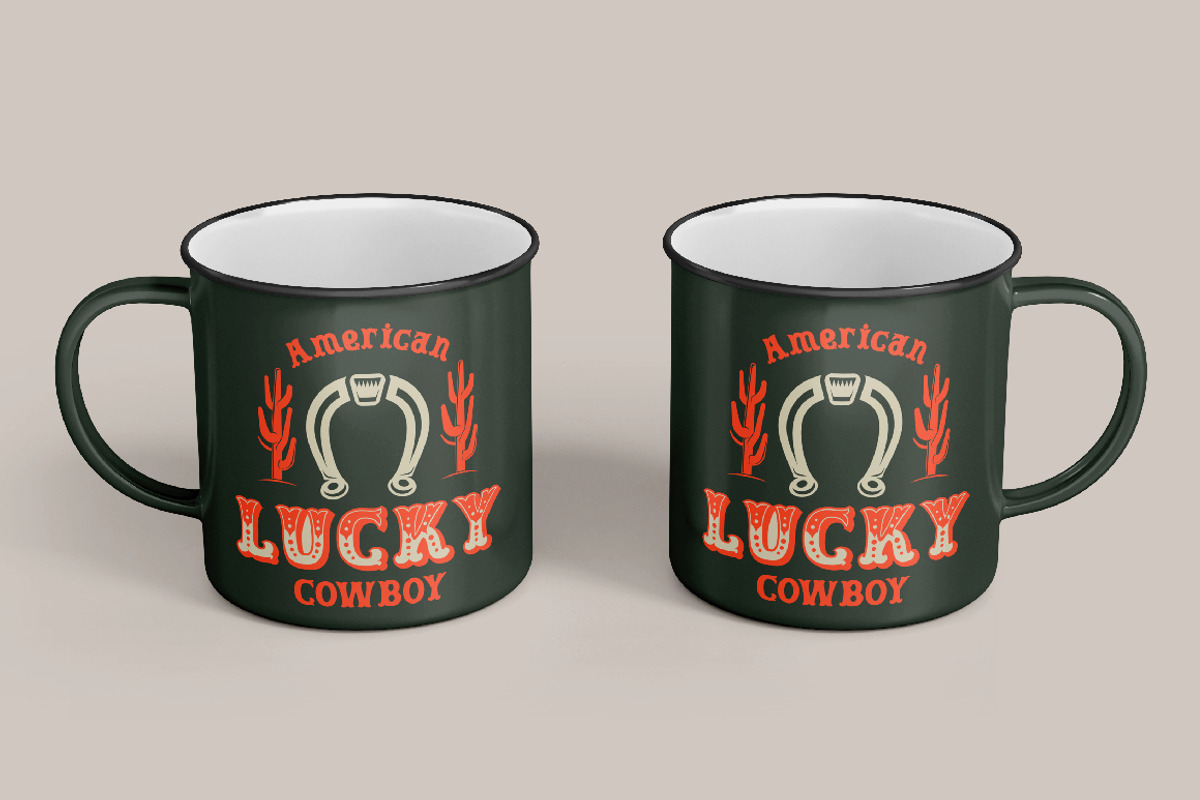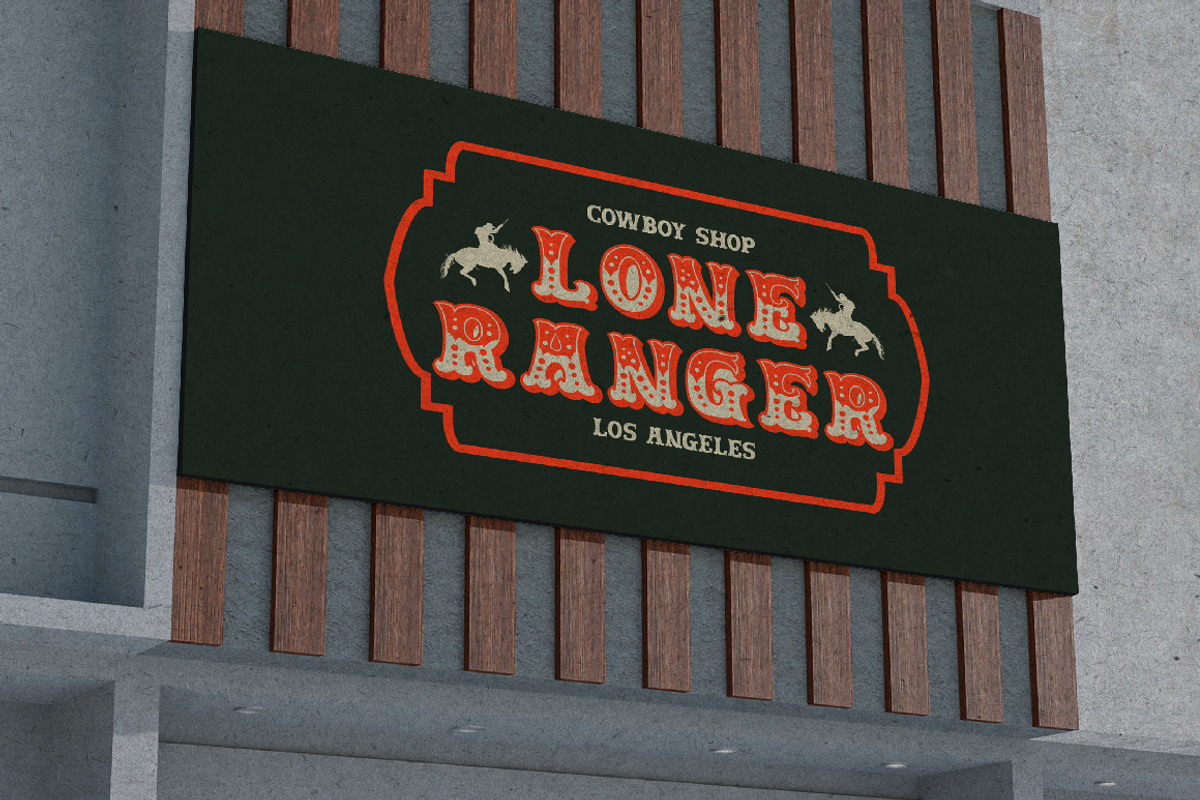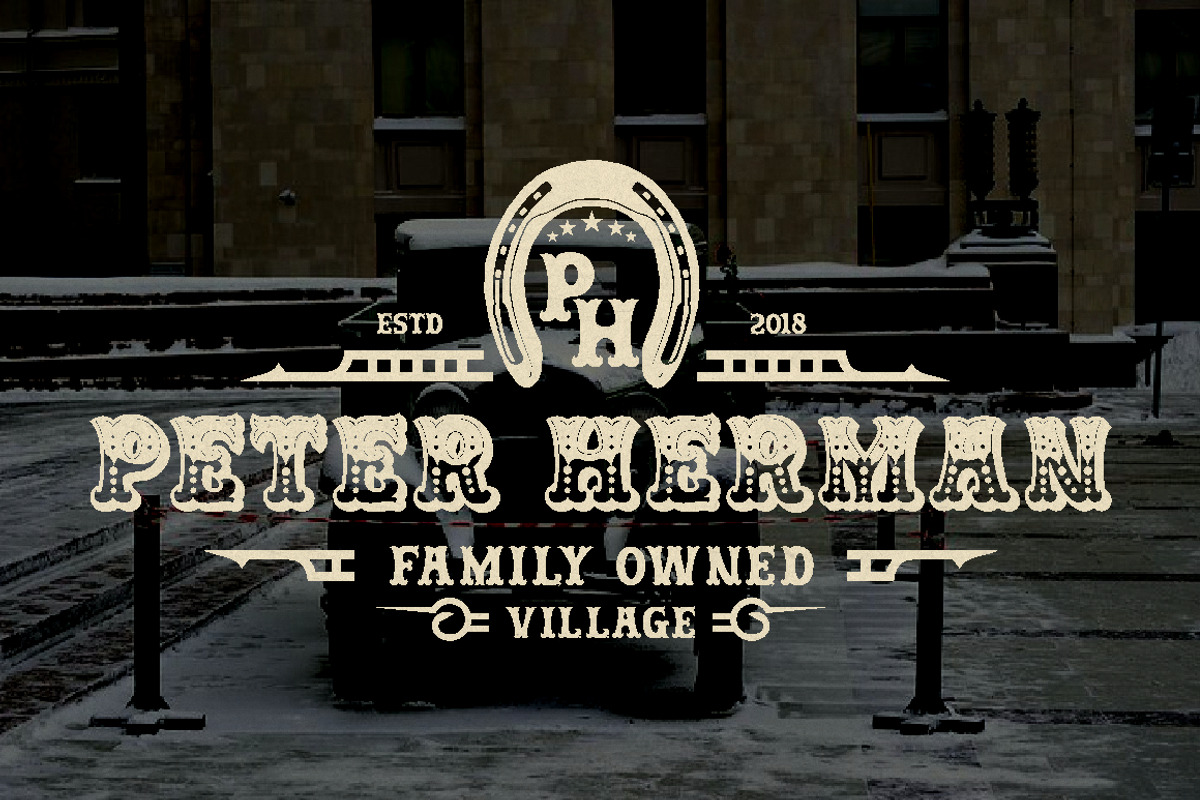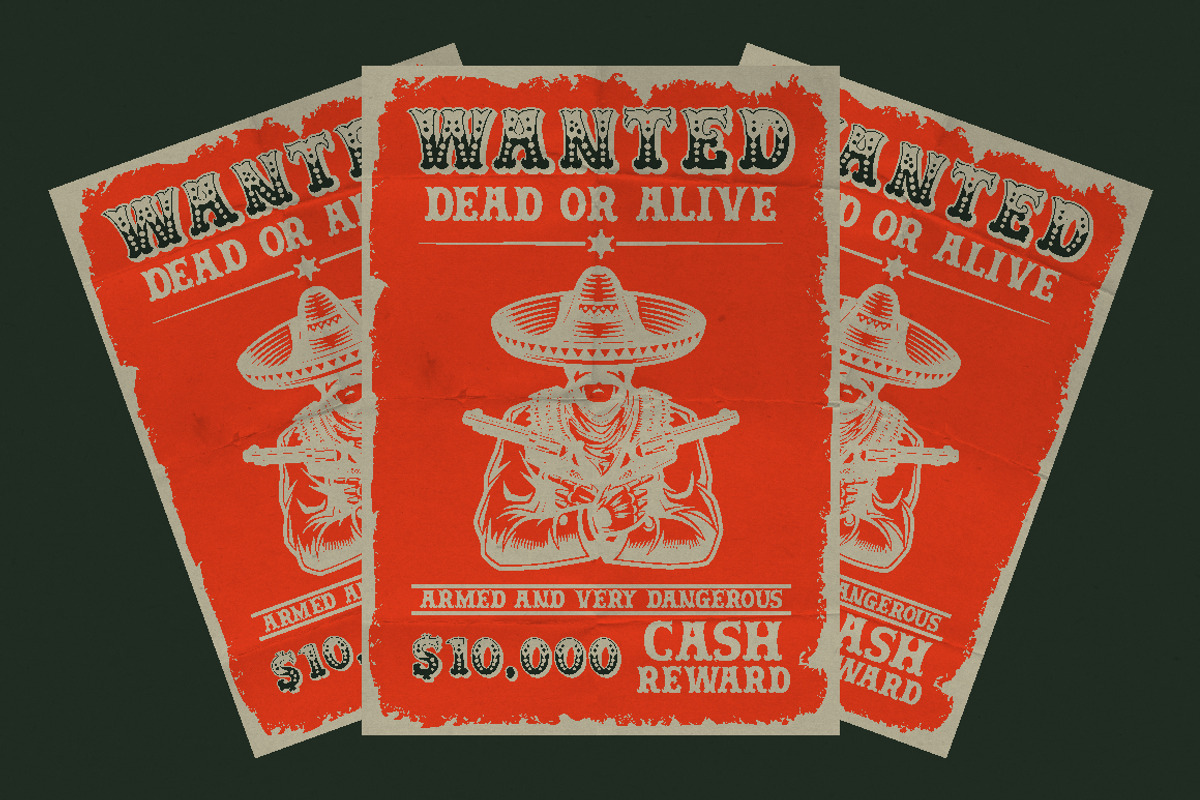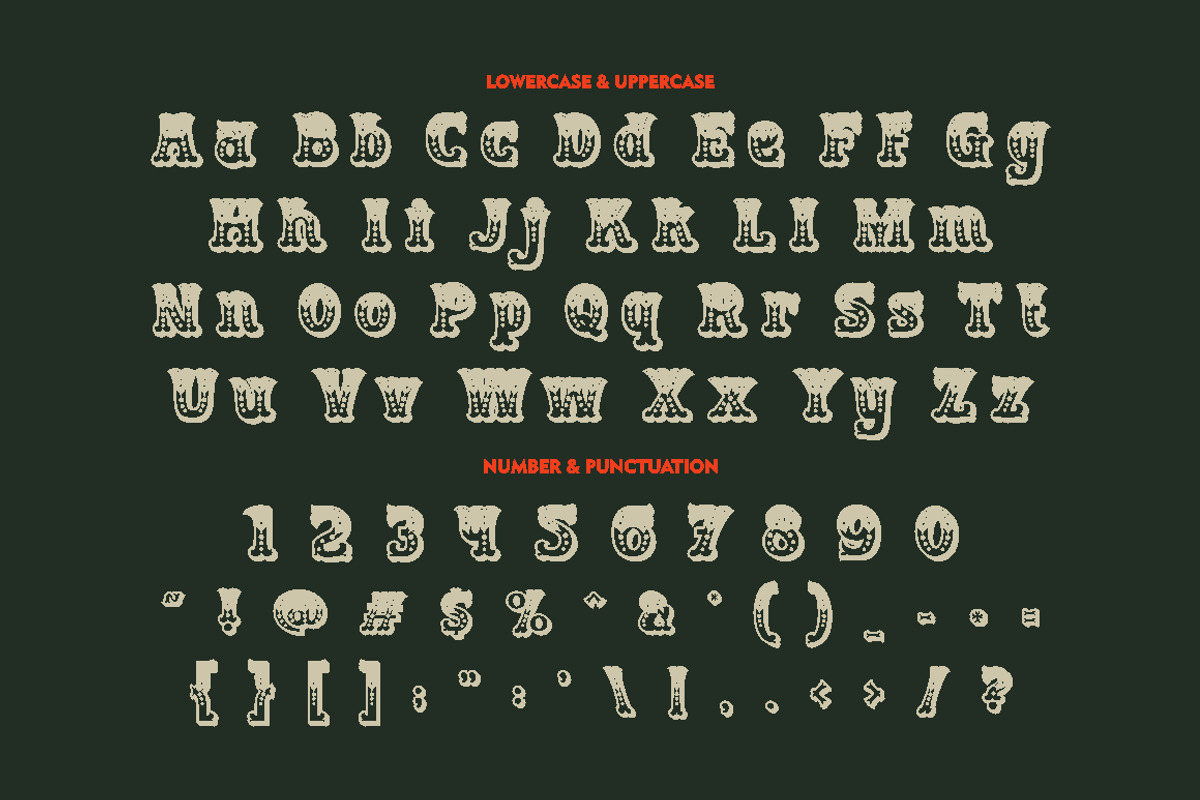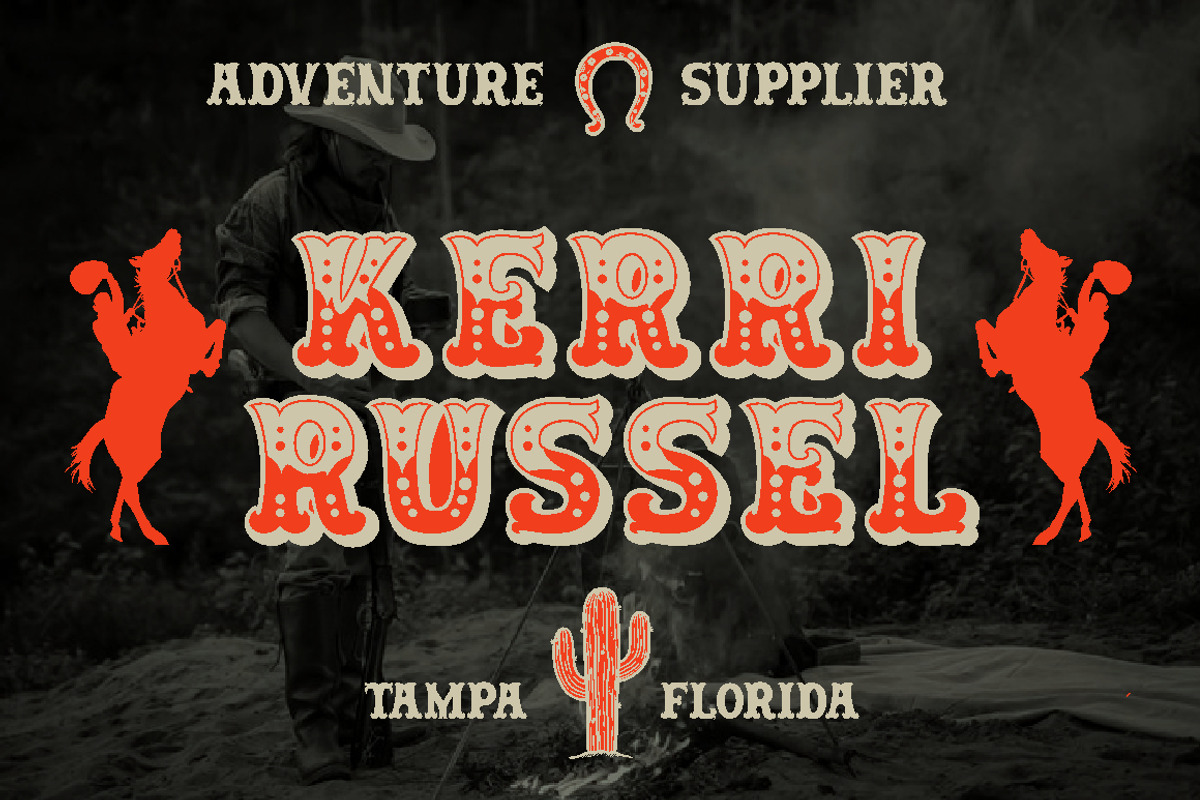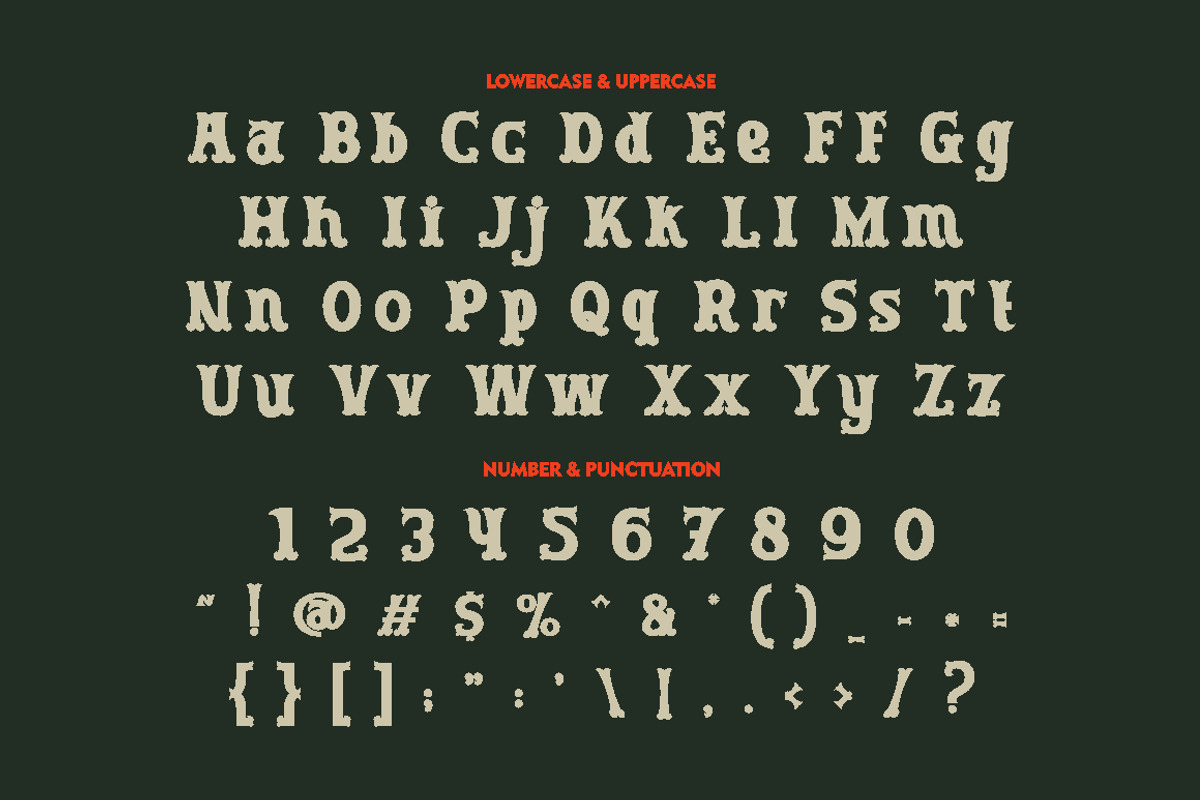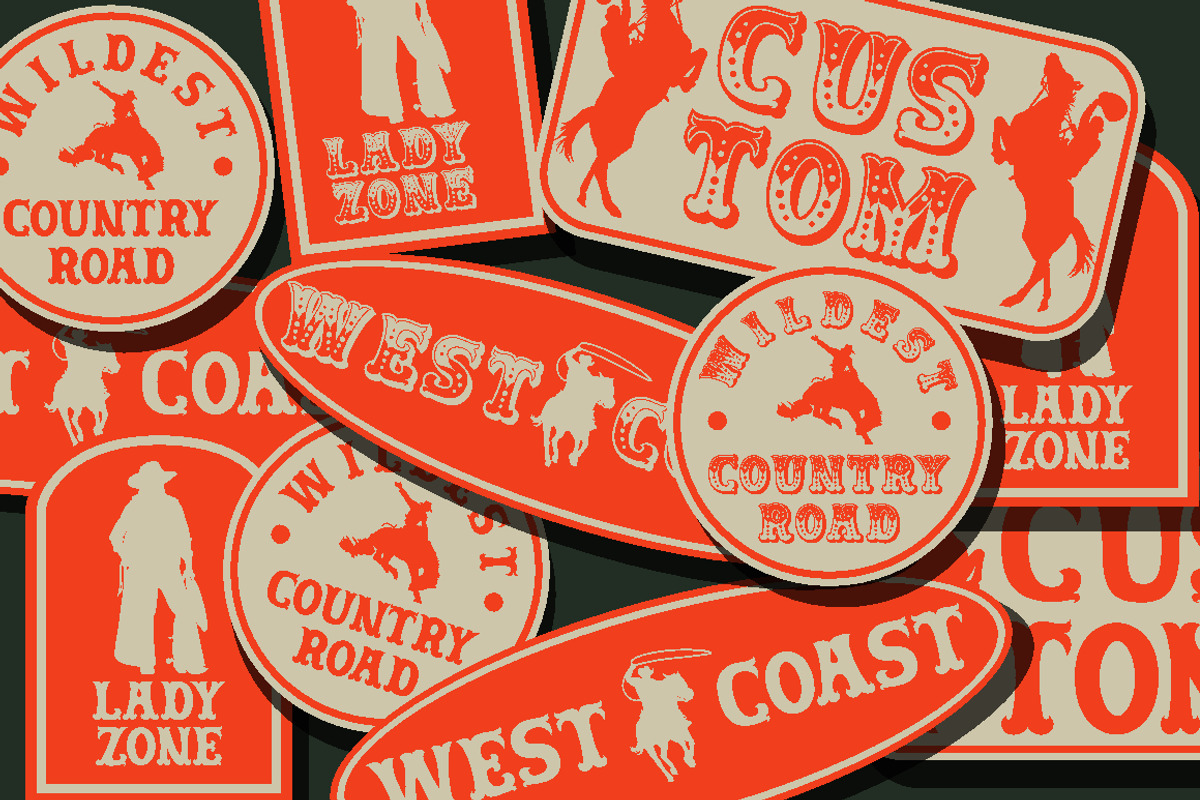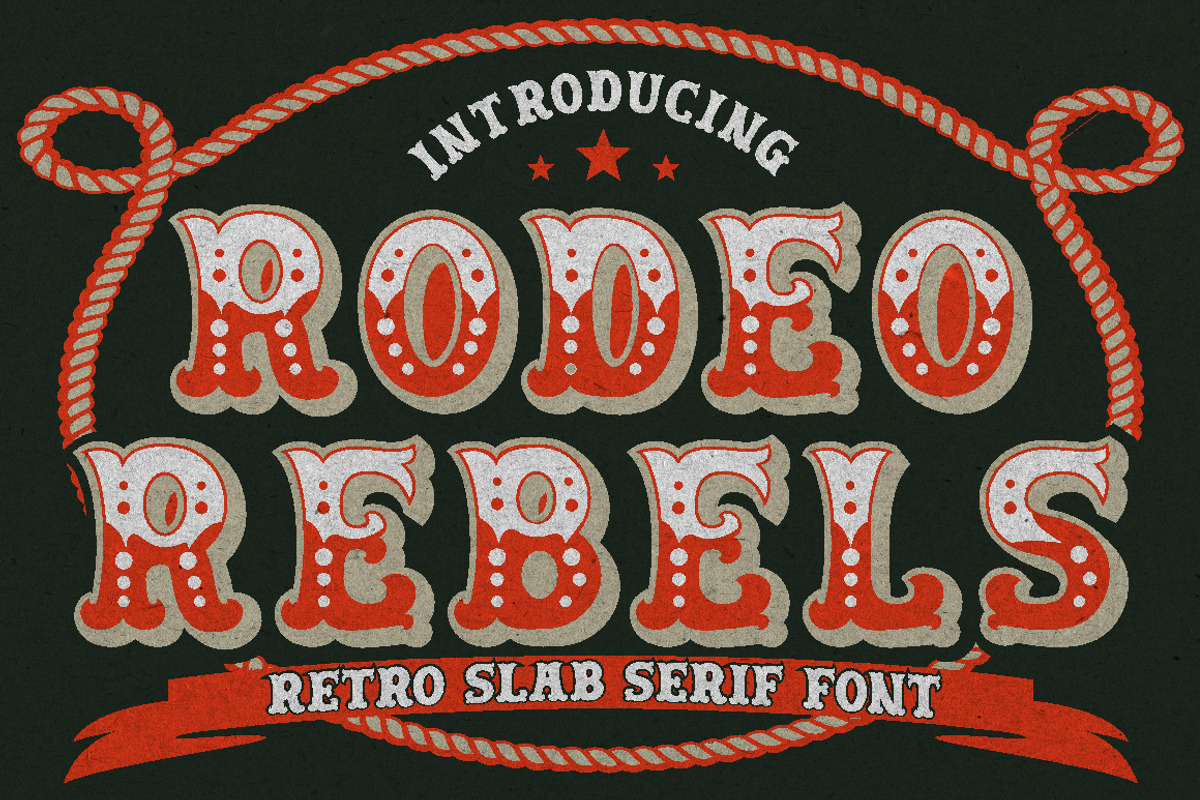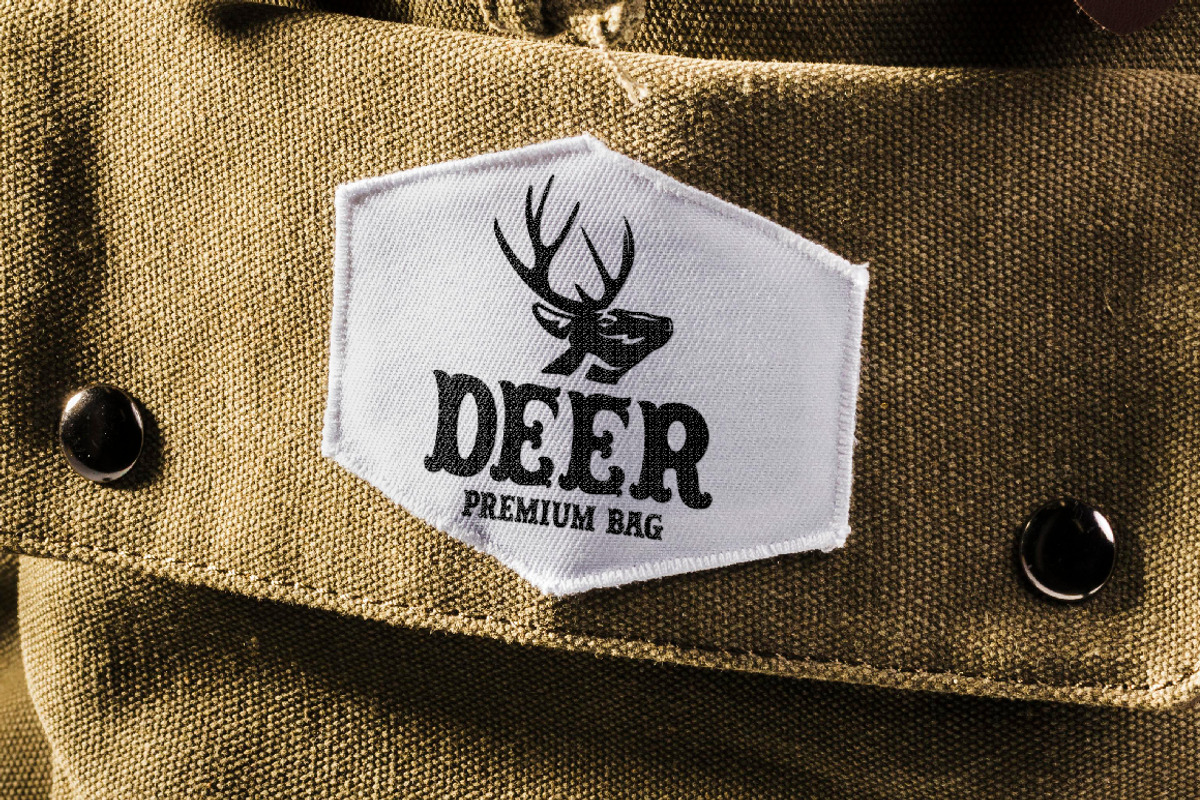
Rodeo Rebels - Display Typeface
Rodeo Rebels is a display typeface with a retro, cowboy, and western theme. It's perfect for designs that require a bold and masculine touch, such as branding, packaging, posters, and headlines. The font was inspired by vintage rodeo posters and the American Old West, where bold, slab-serif typography was a common sight.
To make the most out of Rodeo Rebels, consider using it in designs that require a rugged and tough aesthetic, such as clothing and apparel, whiskey and beer packaging, and Western-themed events. Pairing it with other vintage-inspired elements, such as distressed textures and illustrations, can also help create a cohesive look and feel.
Rodeo Rebels comes with various features, including uppercase and lowercase letters, opentype alternates, and ligatures. It also supports multiple languages and includes numbers, punctuation, and symbols. With its versatile design and robust features, Rodeo Rebels is an excellent choice for designers looking to add a vintage Western flair to their projects.
With its bold and rugged aesthetic, Rodeo Rebels is a font that demands attention. It's perfect for projects that require a vintage and masculine vibe, and its features make it a versatile choice for a wide range of designs. Give your projects a touch of the American Old West with Rodeo Rebels, and let its bold and rugged style do the talking.
In summary, Rodeo Rebels is a retro-inspired display typeface that brings the rugged and bold aesthetic of the American Old West to your designs. With its multiple features and file formats, it's a versatile font that can be used in a wide range of projects, from branding and packaging to posters and headlines.